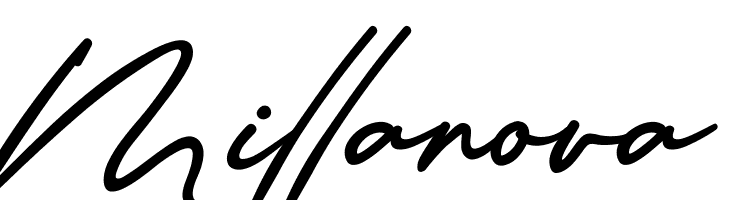
A dynamic and fluid script font with elegant cursive letters.
A gothic, decorative font with intricate and elongated letterforms, perfect for fantasy themes.
A modern serif font with bold uppercase and elegant lowercase characters.
A decorative font with elegant, artistic letterforms and playful curves.
A bold, textured font with a playful, handcrafted feel.
A rugged, distressed font with jagged edges and a chaotic, hand-drawn style.